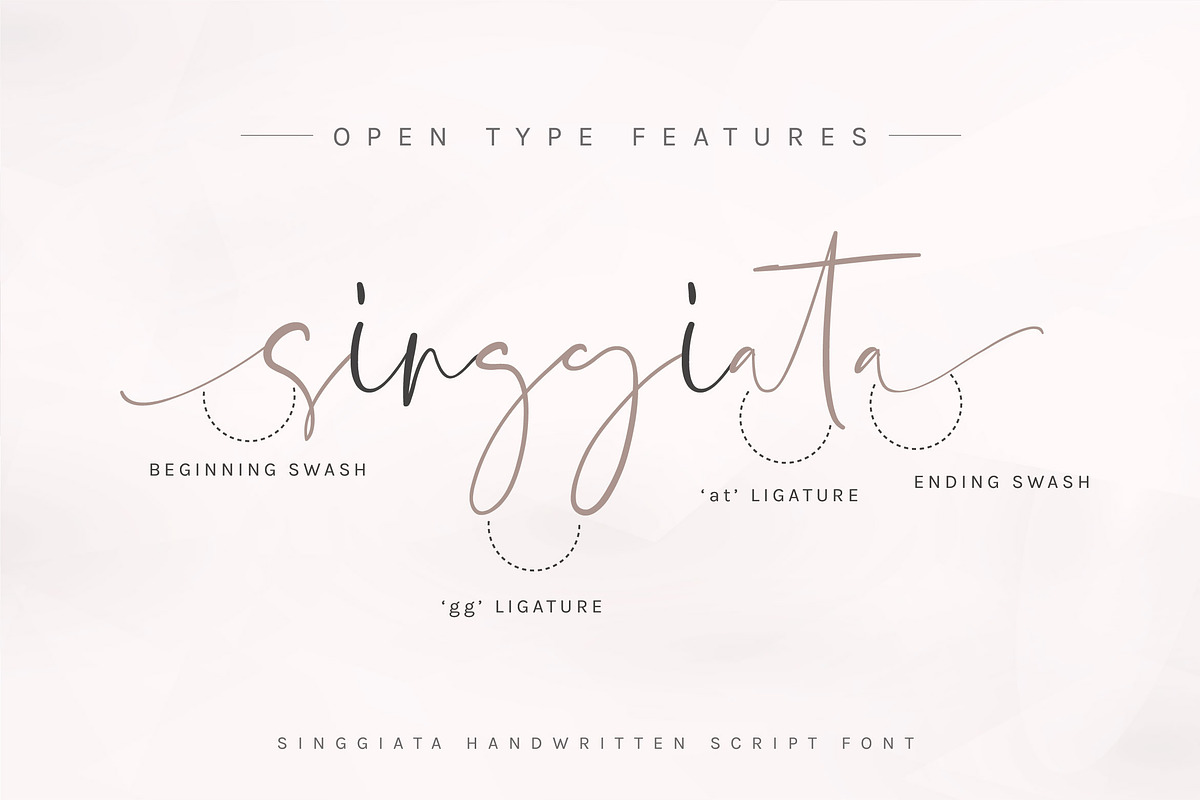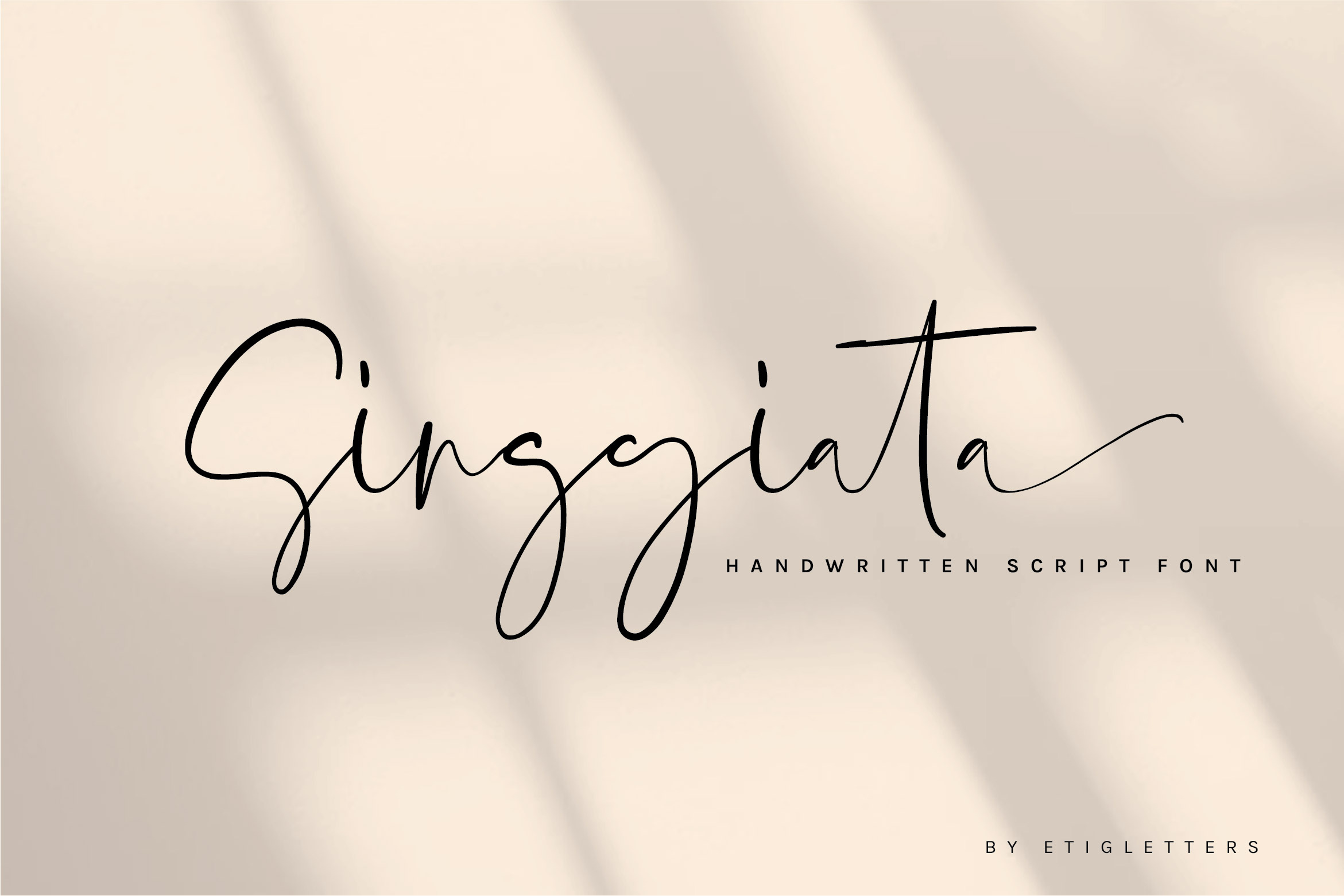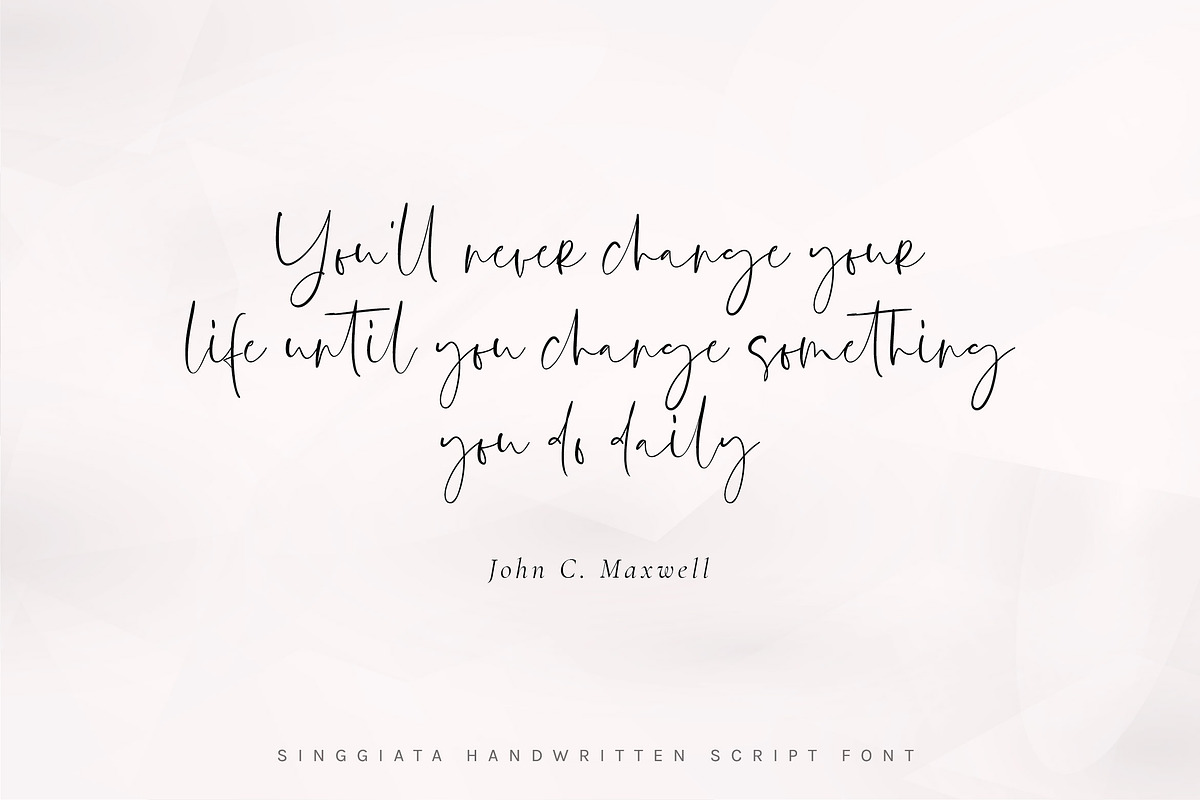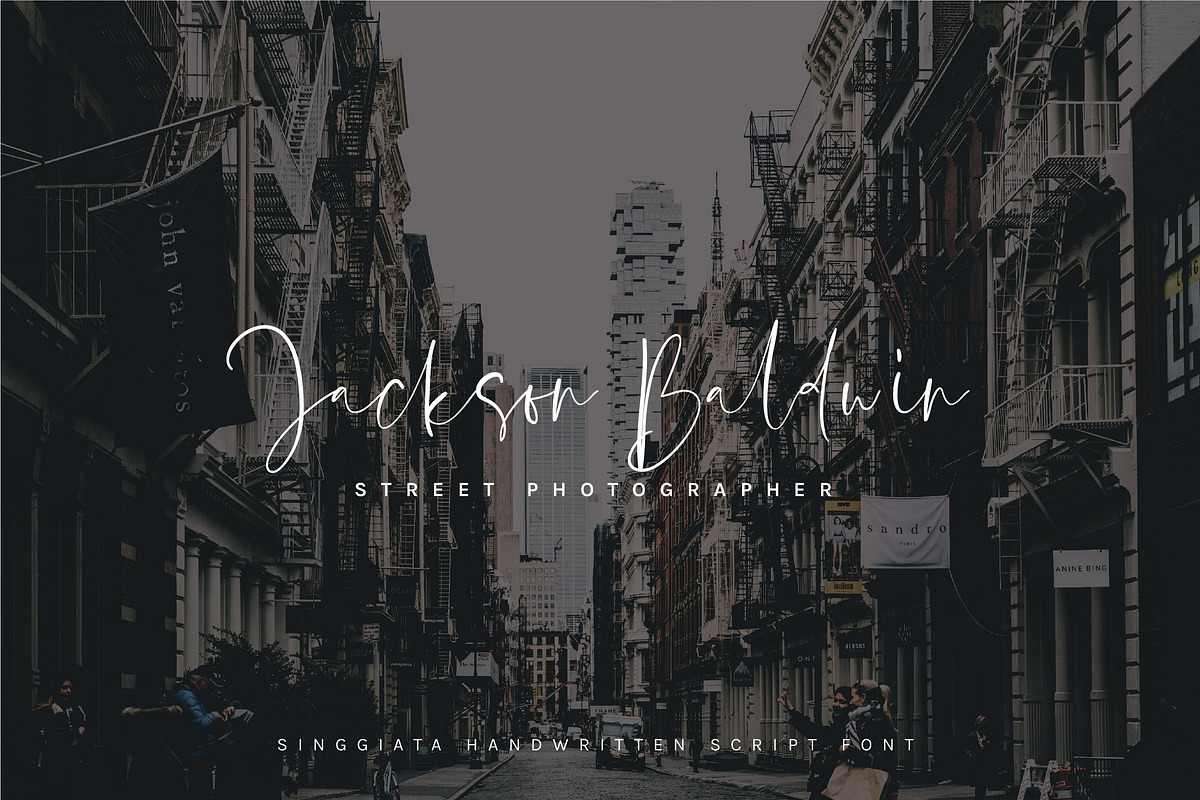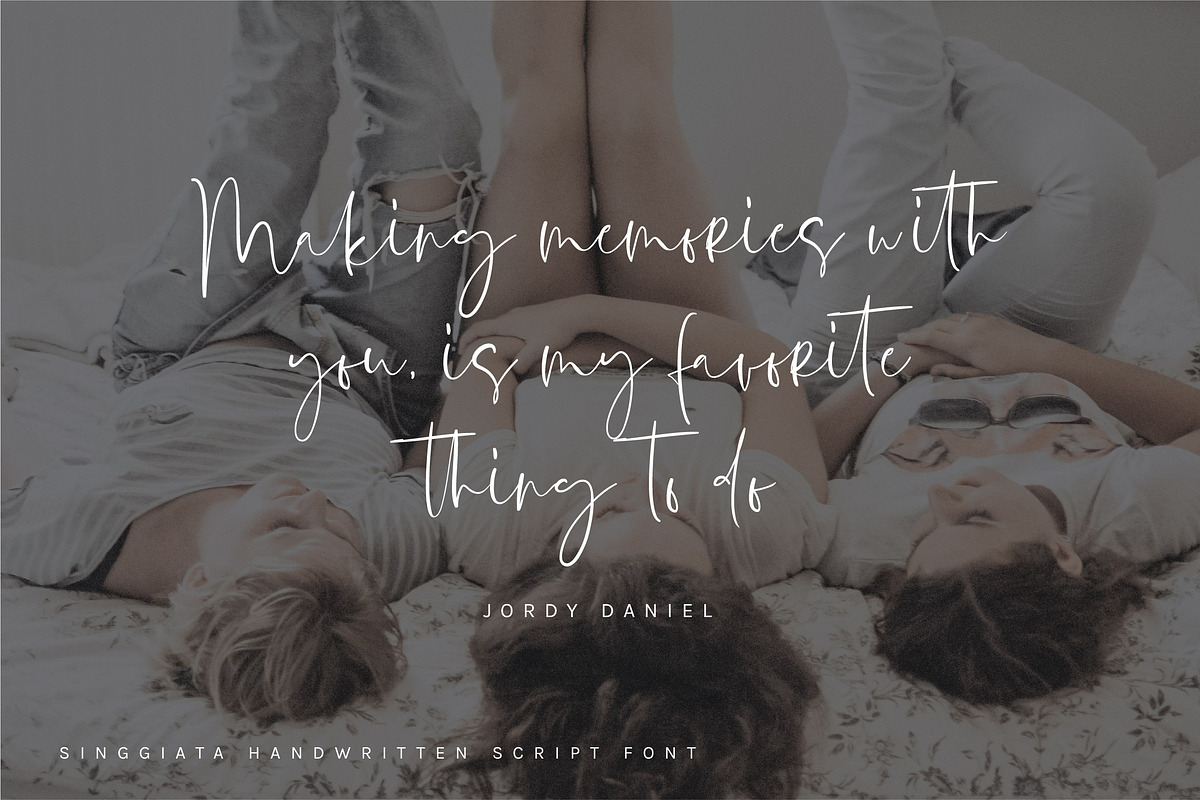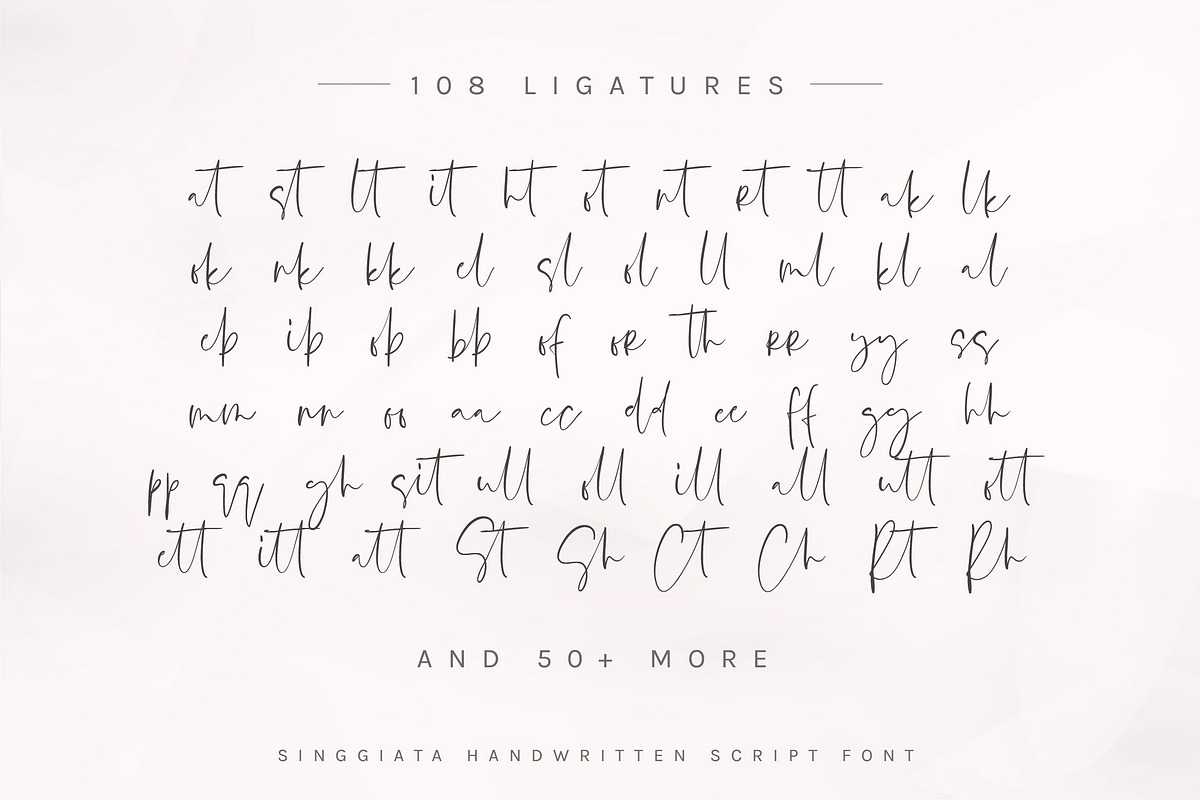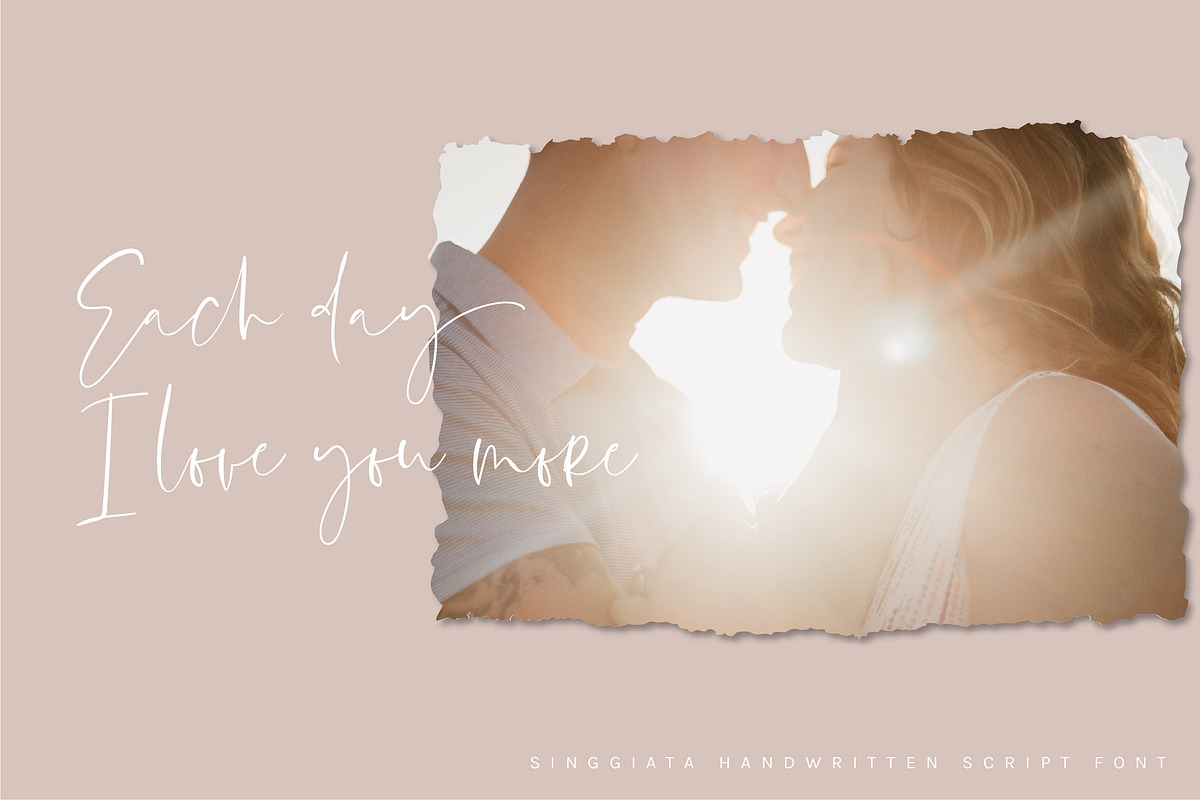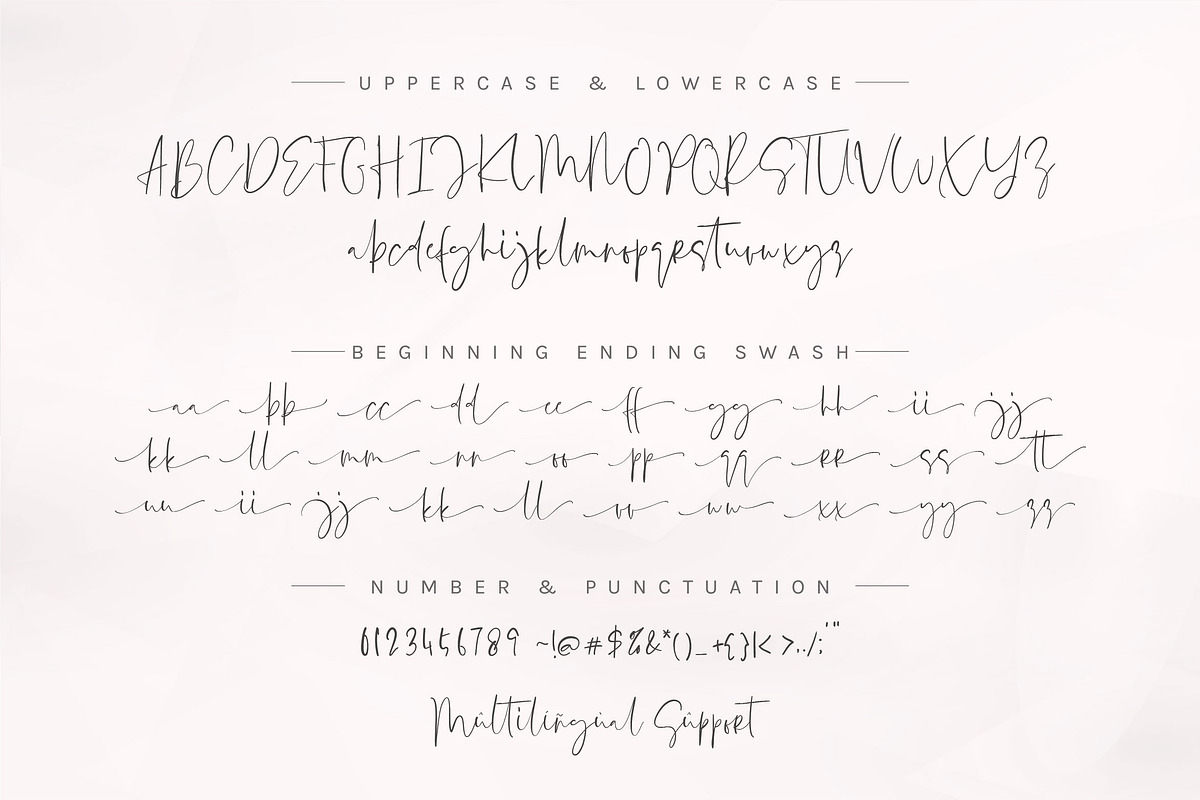
Singgiata Handwritten Font
Singgiata is a casual organic signature script font that’s perfect for giving your designs an authentic handwritten feel and is perfect for branding, wedding invites, logos, magazines, photo overlays, blogs branding, wedding invitations and cards, and much more!
Singgiata includes full set of uppercase and lowercase letters, numerals, and including over 100 ligatures. All lowercase letters include beginning and ending swashes with realistic handwritten style. In order to use the swashes on Opentype: Initial form (titl) for beginning swash Swash (swsh) for ending swash. Singgiata is also support multilingual and already PUA Encoded!